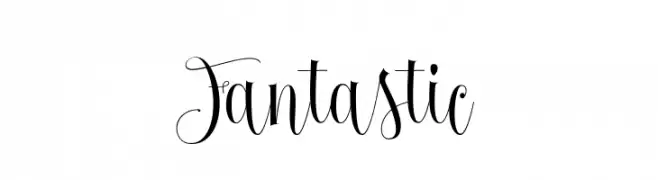
A cursive, elegant font with flowing lines and sophisticated flourishes.
A playful and elegant handwritten font with fluid, flowing letterforms.
An elegant, decorative script font with intricate curves and flourishes.